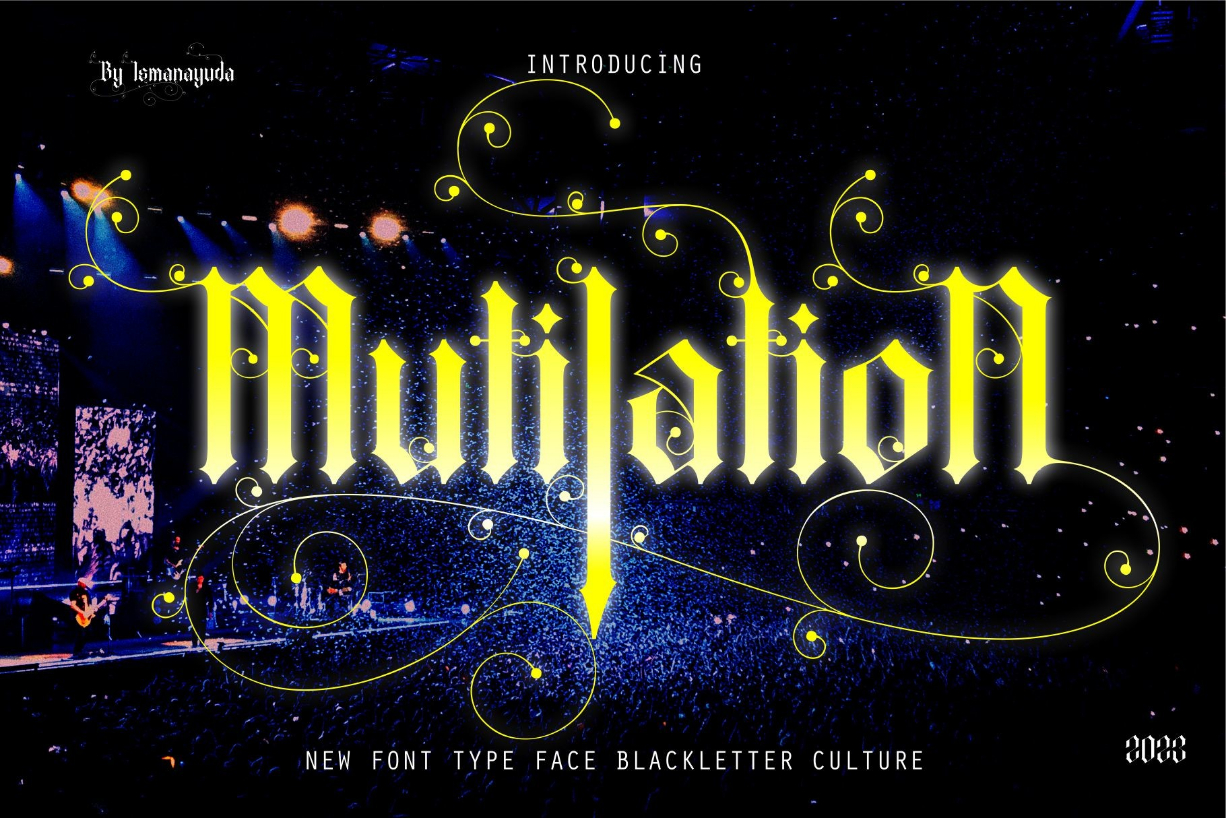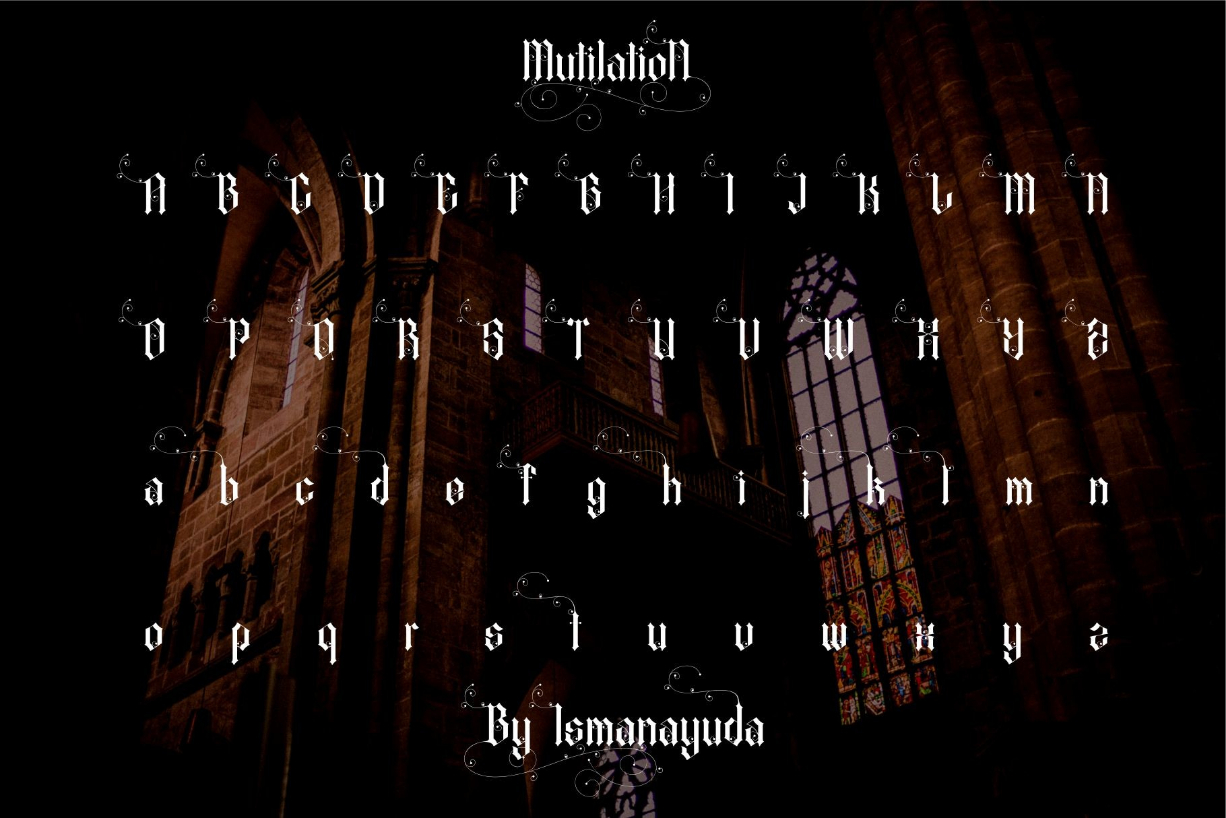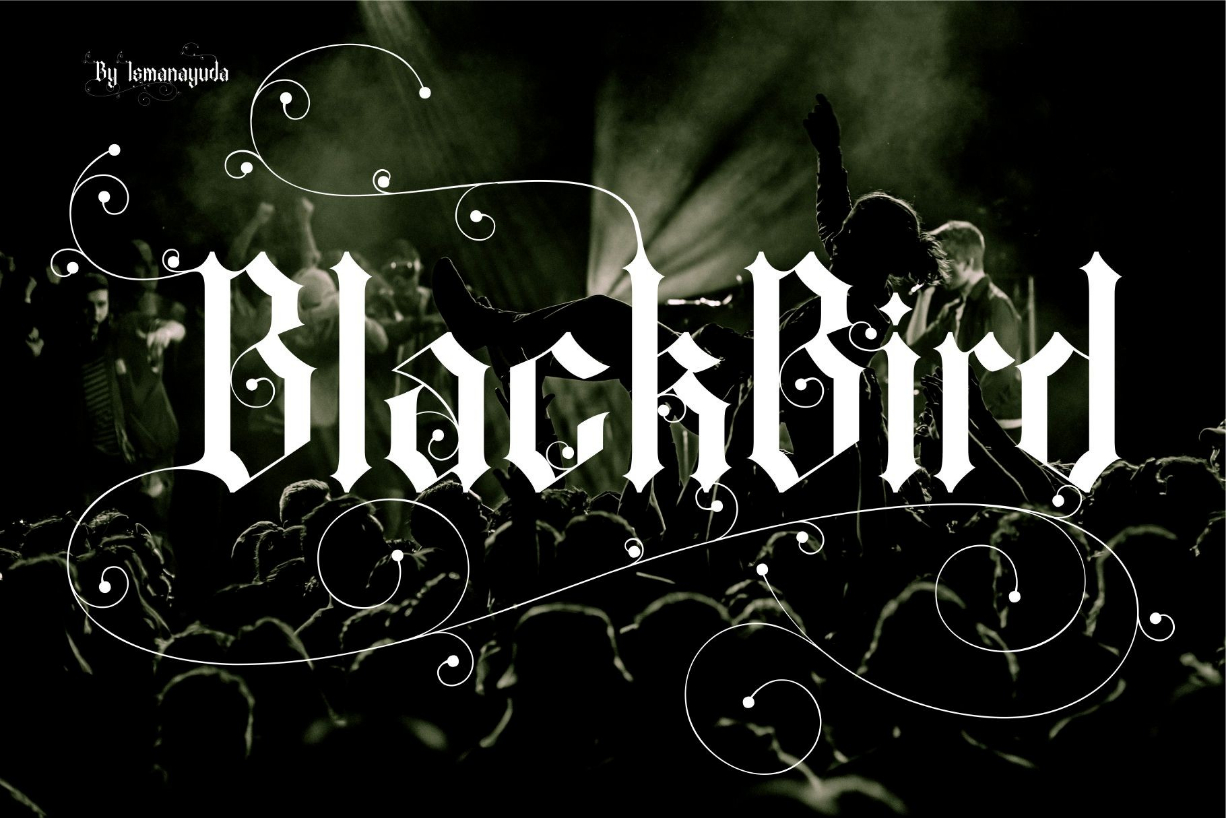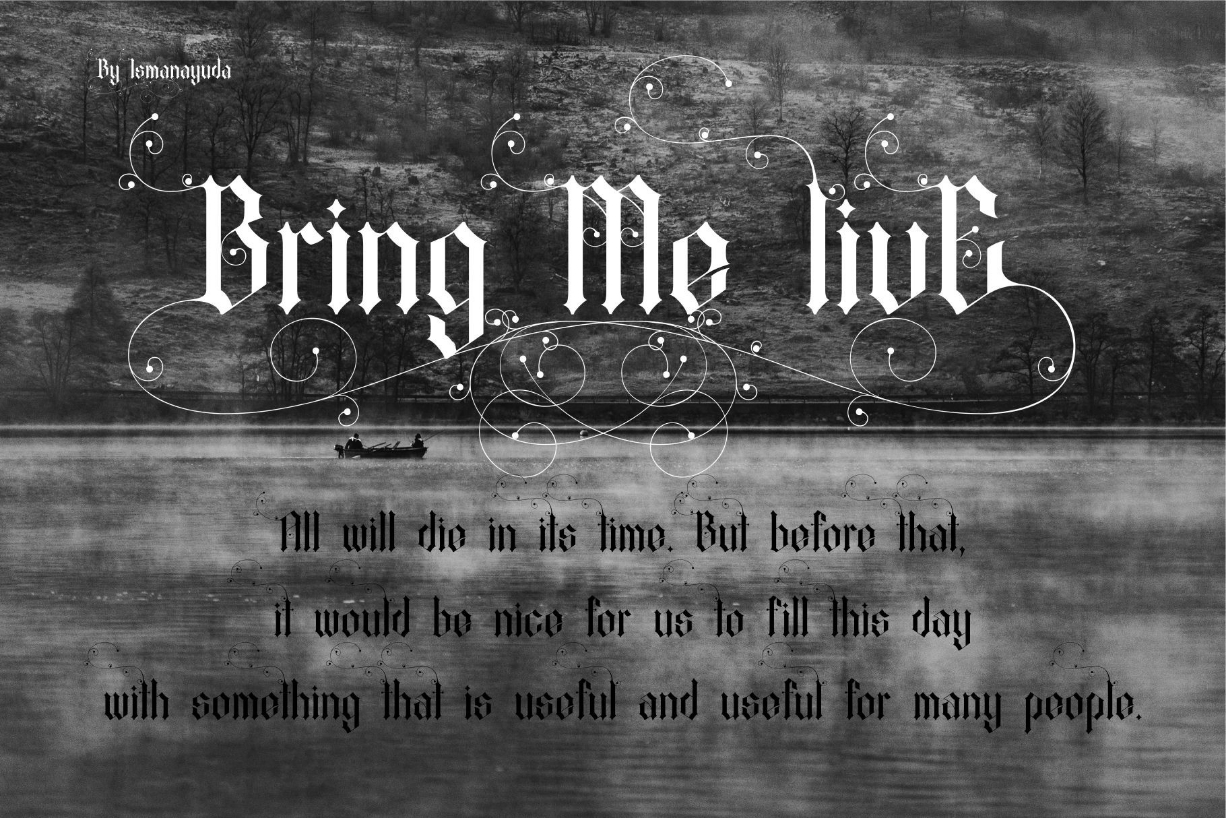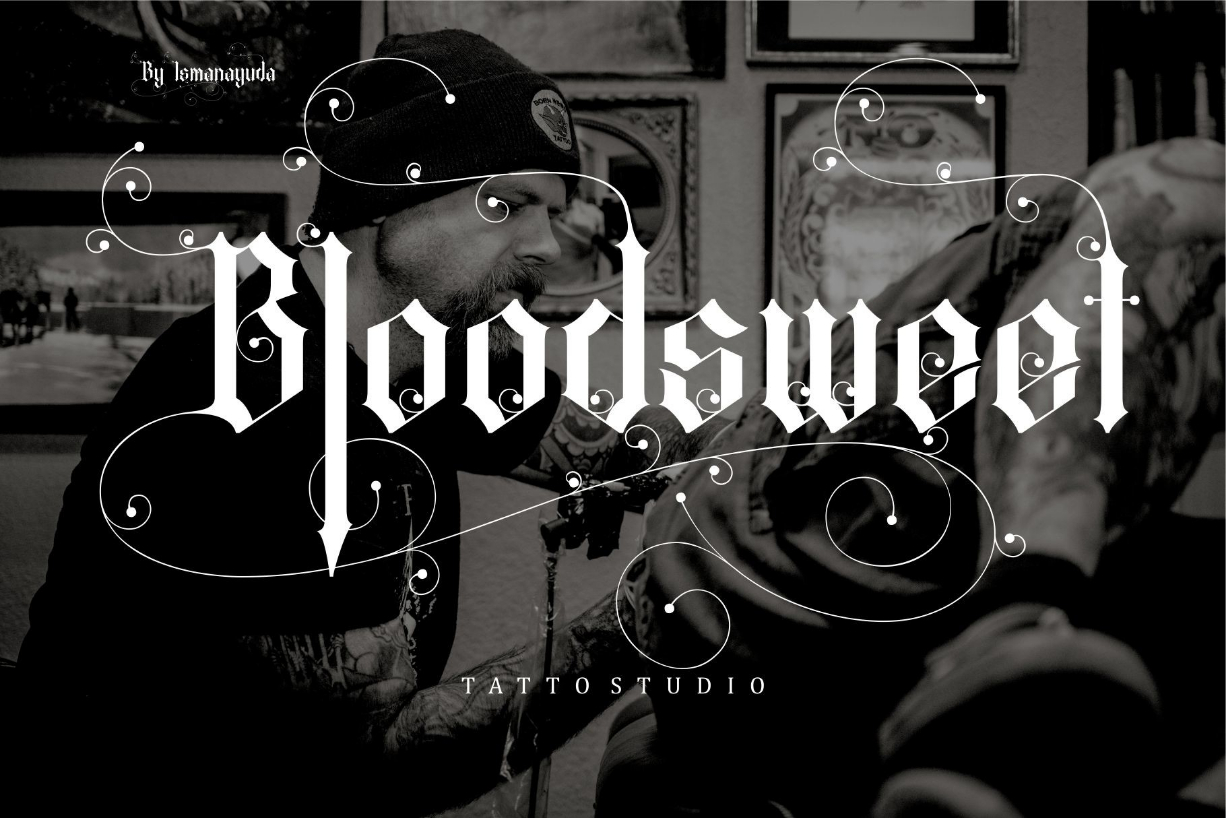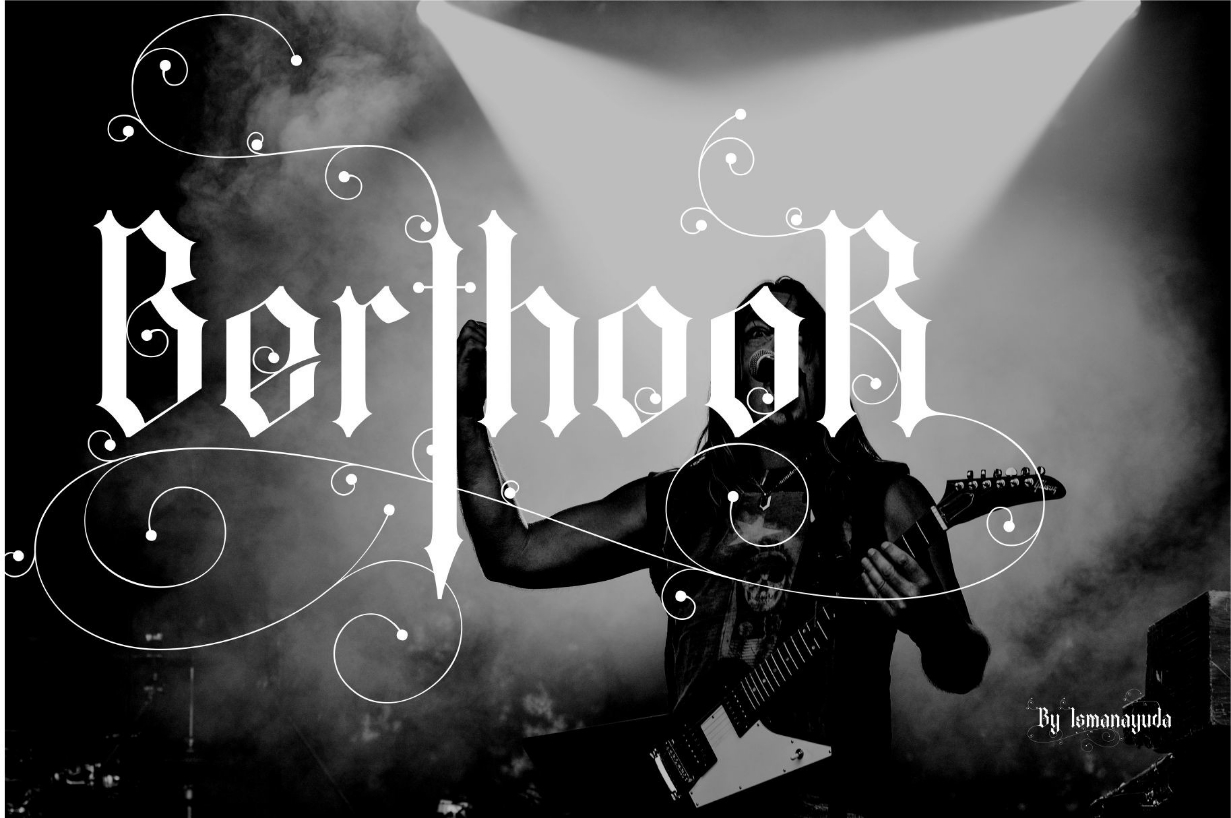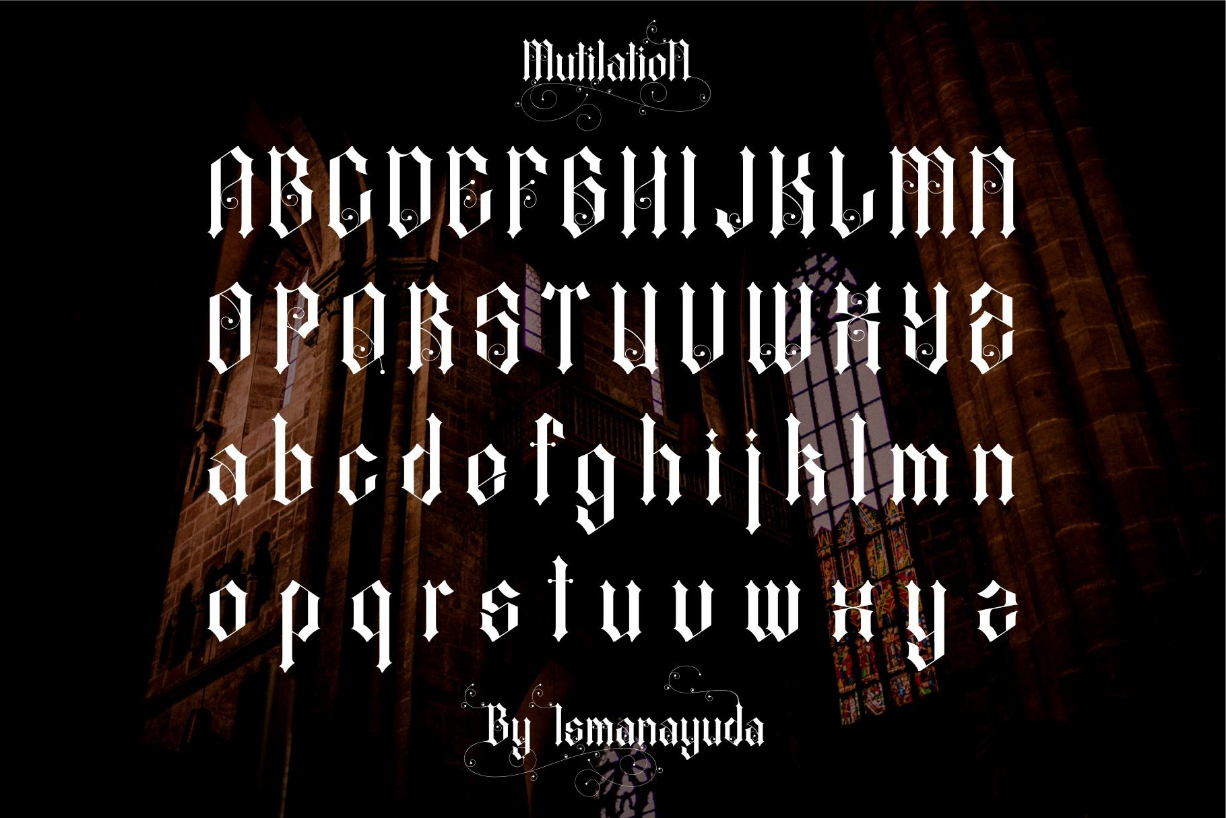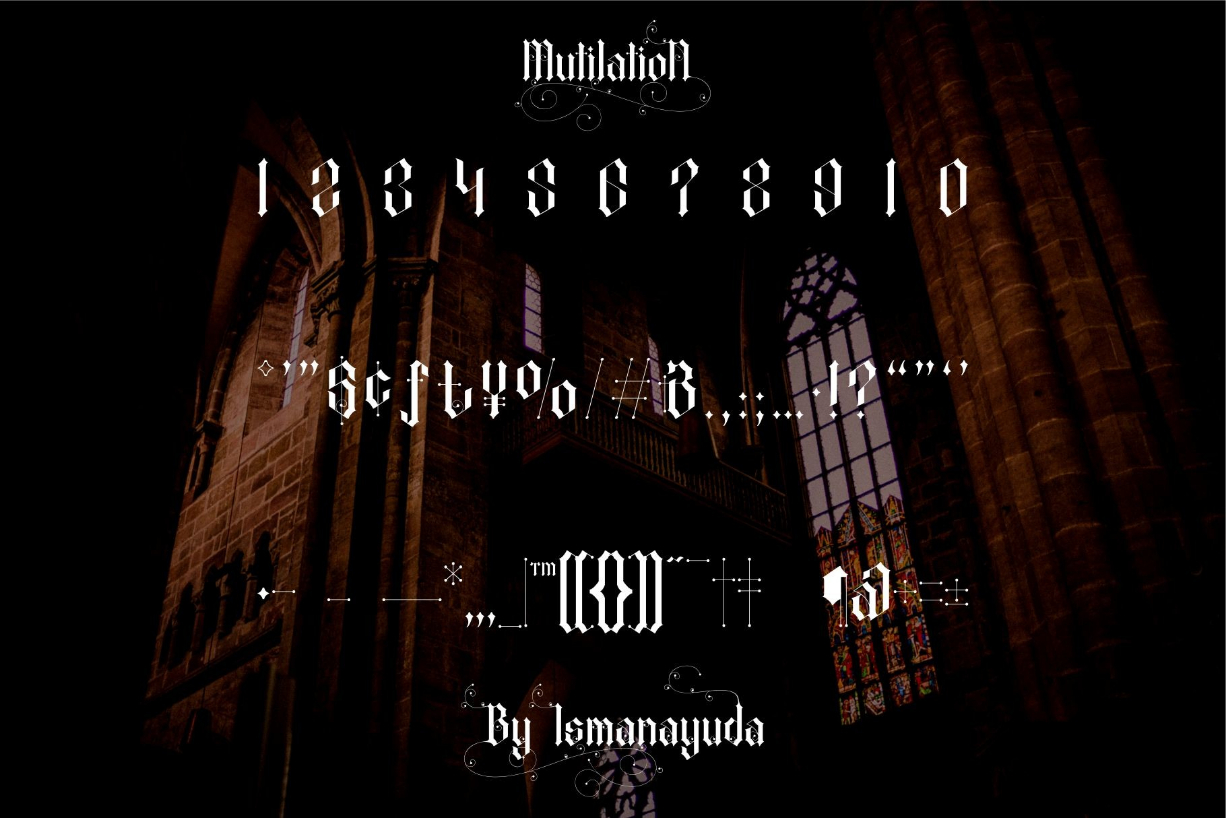
Mutilation Font
About Mutilation Font
Which carries the flow of black letters combined with a beautiful and charming stylistic.
We named it “MutilatioN”.